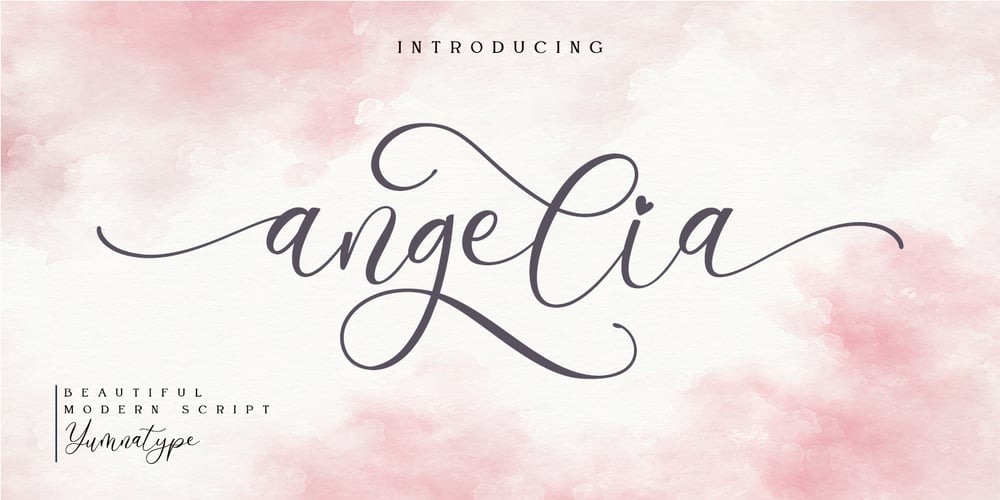
Angelia Font Family was designed by Donis Miftahudin and published by Yumna Type. Angelia contains 1 styles and family package options. Say hello to Angelia – Lovely Script.Angelia is a beautiful and modern script.It brings a beautiful and modern typeface that best used for weddings, branding, logotype, and quotes.:Includes : – Angelia (OTF)Features : 6 Beautiful Ligatures 9 Beautiful Alternates PUA Encoded Multilingual Support Numerals and Punctuation Beginning Swash and Ending Swashes (a-z) Easy Uses Thank You for visiting our shopHave a nice day!